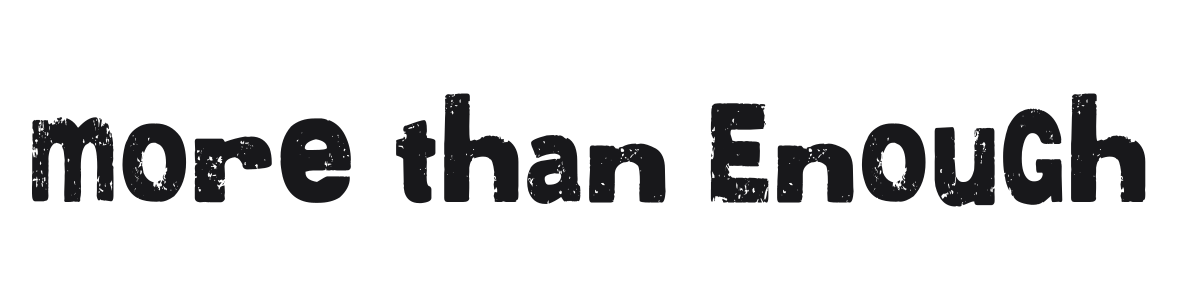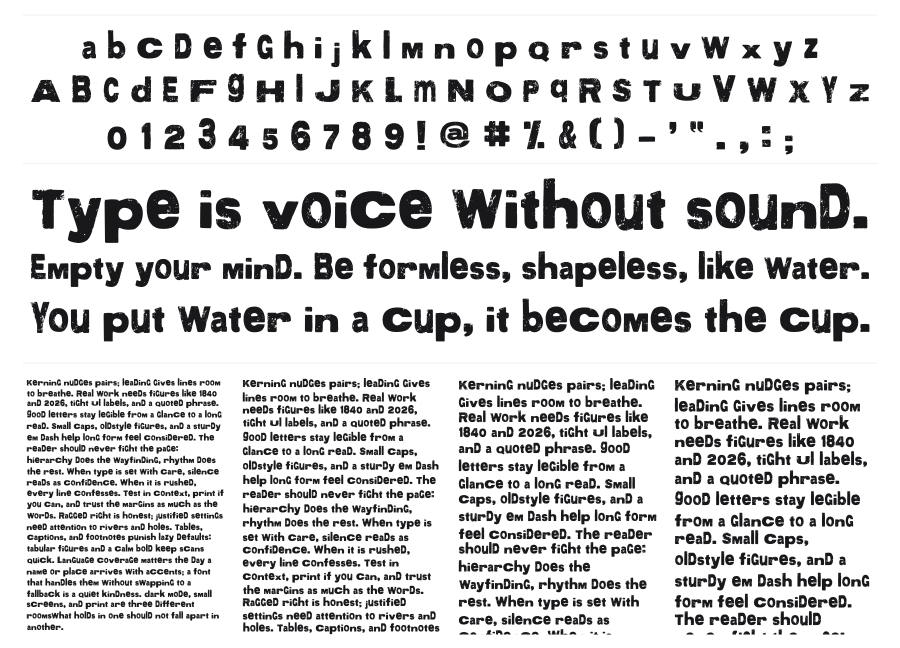
More than Enough
More than Enough is a chunky, heavily distressed display font from Kimberly Geswein with a stamped, worn-ink texture on every character. The bold strokes and irregular surface noise give it a handmade, zine-like energy that works well at large sizes. It has a casual, unpretentious personality that suits informal branding and editorial headlines.